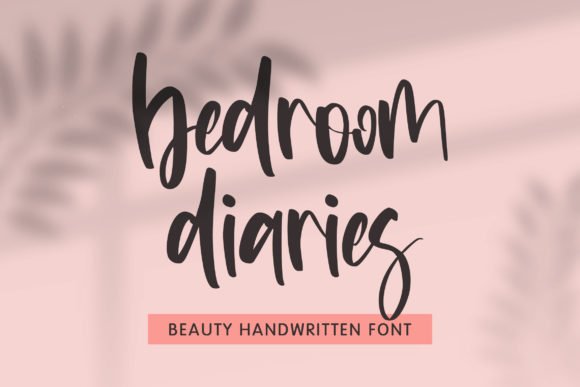
Unleashing the Whimsy of Your Designs
Have you ever been brainstorming a creative project and suddenly, the perfect font pops into your mind? That’s exactly what happened to me when I stumbled upon the enchanting Bedroom Diaries Font. Its elegant, hand-crafted script style is the perfect way to add a touch of warmth and personality to your designs.
Whether you’re working on a logo, branding, or quote, Bedroom Diaries Font is the ultimate choice to make your design come alive. Every letter has a unique and beautiful touch, making it a valuable asset for designers who want to stand out from the crowd. With its relaxed and inviting feel, Bedroom Diaries Font is the perfect addition to any design project.
Key Features of Bedroom Diaries Font
- Font Family: Bedroom Diaries, with 2 styles (Regular and Bold)
- Character Set: Latin, Cyrillic, Greek, and extended Latin characters
- Unique Characteristic: Whimsical, hand-drawn design with a mix of cursive and script elements
Bedroom Diaries Font Review
I recently had the chance to work with the Bedroom Diaries Font, and I’m excited to share my honest thoughts on this beautiful script font.
- Soft and elegant feel: The Bedroom Diaries Font has a lovely, airy quality that makes it perfect for titles, quotes, and other decorative text.
- Highly legible: Despite its script nature, the font is surprisingly easy to read, even at smaller sizes.
- Versatile: I found that the font works well in a range of contexts, from modern to vintage-inspired designs.
- Limited character set: The font’s character set is somewhat limited, which can make it tricky to work with in certain situations.
- No language support: As a script font, the Bedroom Diaries Font doesn’t support non-Latin languages, which can be a limitation for global projects.
Overall, I think the Bedroom Diaries Font is a beautiful addition to any designer’s toolkit. While it has some limitations, its unique feel and high legibility make it a great choice for the right projects.
- Use it for creative projects, such as journaling or scrapbooking.
- Combine it with other fonts for a unique and interesting design.
- Experiment with different sizes and styles to create a visually appealing design.
The Bedroom Diaries Font is commonly used for:
- Journaling and diary writing.
- Scrapbooking and memory keeping.
- Creative writing and poetry.
- Personalized stationery and invitations.
Alternatives to “Bedroom Diaries Font” for Designers
Great Vibes is a beautiful, elegant script font perfect for adding a touch of sophistication to your designs. It’s ideal for use in branding, invitations, and other creative projects where a romantic feel is desired.
Comparison to Bedroom Diaries Font: While both fonts are elegant and feminine, Great Vibes has a more refined and polished look, making it suitable for a wider range of applications.
Alex Brush is a handwritten font with a unique, artistic feel. It’s great for use in creative projects, such as book covers, magazine articles, and advertising materials where a personal touch is needed.
Comparison to Bedroom Diaries Font: Alex Brush has a more rustic and whimsical look compared to Bedroom Diaries Font, making it better suited for projects that require a more organic and free-spirited feel.
Dancing Script is a beautiful, elegant script font perfect for use in creative projects, such as invitations, posters, and advertising materials where a touch of glamour is desired.
Comparison to Bedroom Diaries Font: Dancing Script has a more dramatic and playful look compared to Bedroom Diaries Font, making it better suited for projects that require a more attention-grabbing and dynamic feel.
For optimal readability, we recommend using the Bedroom Diaries Font at a minimum size of 12pt, with a line spacing of 1.5 to 2 times the font size. This will ensure clear and legible text, even in smaller font sizes.